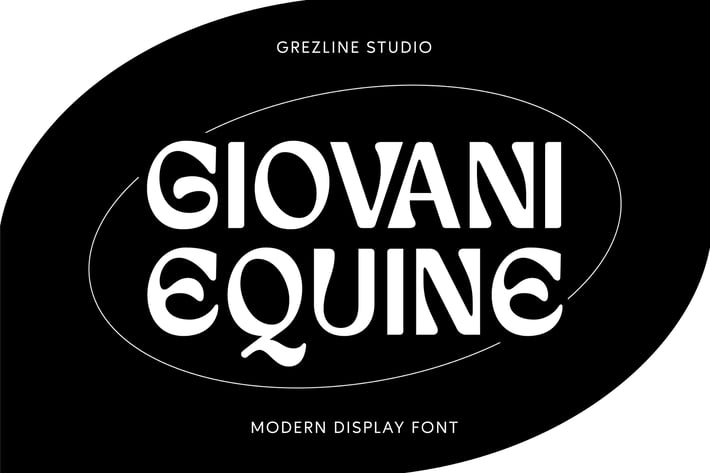
Giovani Equine - Display Font
Giovani Equine is a unique modern display font. Giovani Equine font is ideal for logos, posters, packaging, banner, and other creative projects that demand visually aesthetic and distinctive elements.
Feature :
- Ligature & Alternate glyphs
- Multilingual Language